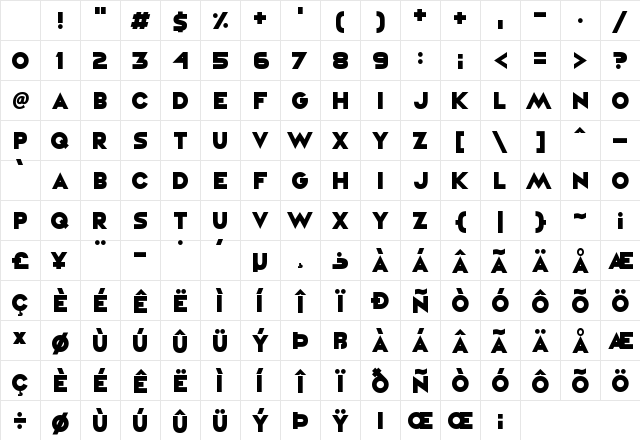
Vampire Raves Regular
Design Context for Vampire Raves
Vampire Raves is a composed and adaptable typeface that performs quietly and consistently across a wide range of design contexts.
Pro Tip: Use Vampire Raves in both headline and body roles to test its range before committing to a single application.